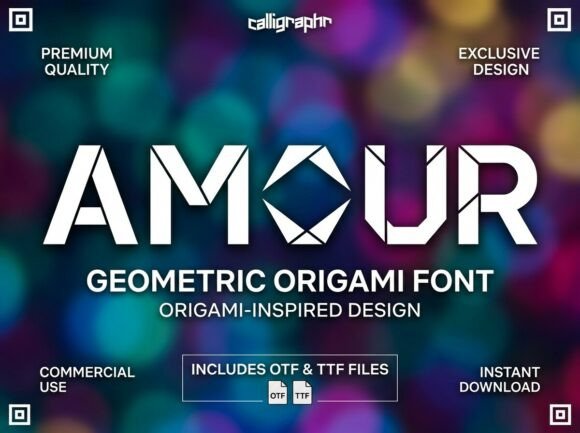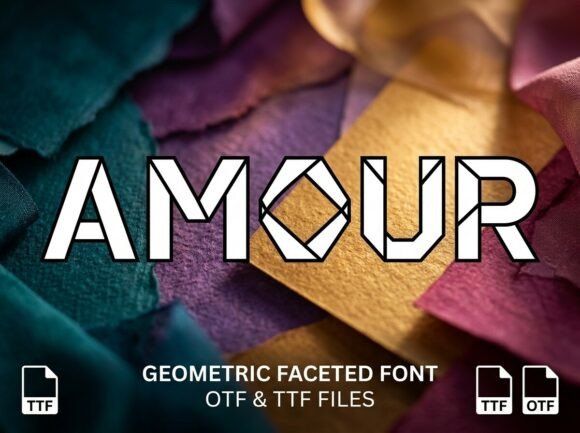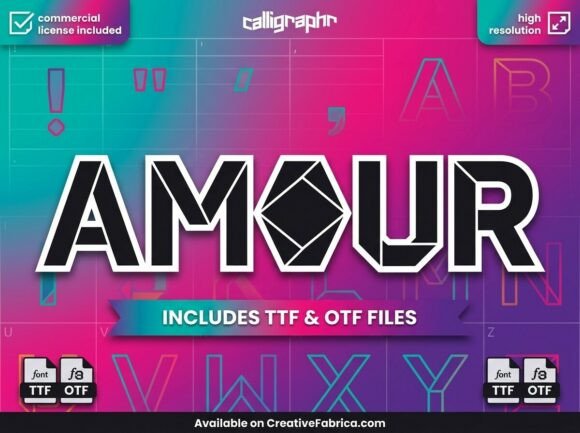
Introducing Amour Font: Elevate Your Brand Identity with a Cutting-Edge Display Typeface
In the world of typography, a font can make or break a brand’s identity. For designers and crafters looking to create a lasting impression, Amour Font is the perfect solution. This ultra-bold display typeface embodies a unique “polygonal-and-prestigious” soul, making it an ideal choice for those seeking to elevate their brand’s visual presence.
The Unique Characteristics of Amour Font
Amour Font boasts massive, ultra-bold letterforms that are uniquely characterized by rhythmic, hand-drawn “folded-plane” geometry. This distinctive feature sets it apart from other fonts, giving it a sharp technical personality that’s sure to turn heads. The diamond-shaped counters, inspired by origami art, add a touch of elegance and sophistication, bridging the gap between traditional craftsmanship and modern architectural branding.
Origami-Inspired Design
The Amour Font’s design is heavily influenced by the art of origami, a traditional Japanese craft that involves folding paper to create intricate designs. The font’s “folded-plane” geometry and diamond-shaped counters pay homage to this ancient art form, infusing the font with a sense of delicacy and precision. At the same time, the font’s bold and structural weight gives it a modern, cutting-edge feel that’s perfect for high-end branding and design.
Ideal for High-Impact Branding
Amour Font is the premier choice for designers and crafters looking to create high-impact branding and visual identities. Its heavy structural weight and sharp technical personality make it perfect for:
- Independent jewelry designers seeking to create a luxurious and sophisticated brand image
- High-end tech startups looking to establish a strong and modern visual identity
- Creative design agencies aiming to showcase their innovative and artistic approach
- Social media headers and graphics that require a bold and attention-grabbing font
Key Features of Amour Font
So, what makes Amour Font stand out from the rest? Here are some of its key features:
- Ultra-bold letterforms with a heavy structural weight
- Rhythmic, hand-drawn “folded-plane” geometry
- Diamond-shaped counters inspired by origami art
- Sharp technical personality with a modern, cutting-edge feel
- Perfect for high-impact branding and visual identities
How to Use Amour Font Effectively
To get the most out of Amour Font, here are some tips for using it effectively:
- Use it as a statement piece: Amour Font is designed to make a statement, so use it sparingly to create a bold and eye-catching visual identity.
- Pair it with contrasting fonts: Amour Font’s bold and structural weight makes it perfect for pairing with lighter, more elegant fonts to create a striking contrast.
- Experiment with colors and textures: Amour Font’s unique design makes it perfect for experimenting with different colors and textures to create a truly unique visual identity.
In conclusion, Amour Font is a cutting-edge display typeface that’s perfect for designers and crafters looking to elevate their brand’s visual presence. Its unique characteristics, origami-inspired design, and heavy structural weight make it an ideal choice for high-impact branding and visual identities. Whether you’re an independent jewelry designer, a high-end tech startup, or a creative design agency, Amour Font is the perfect choice for shaping your brand identity and making a lasting impression.